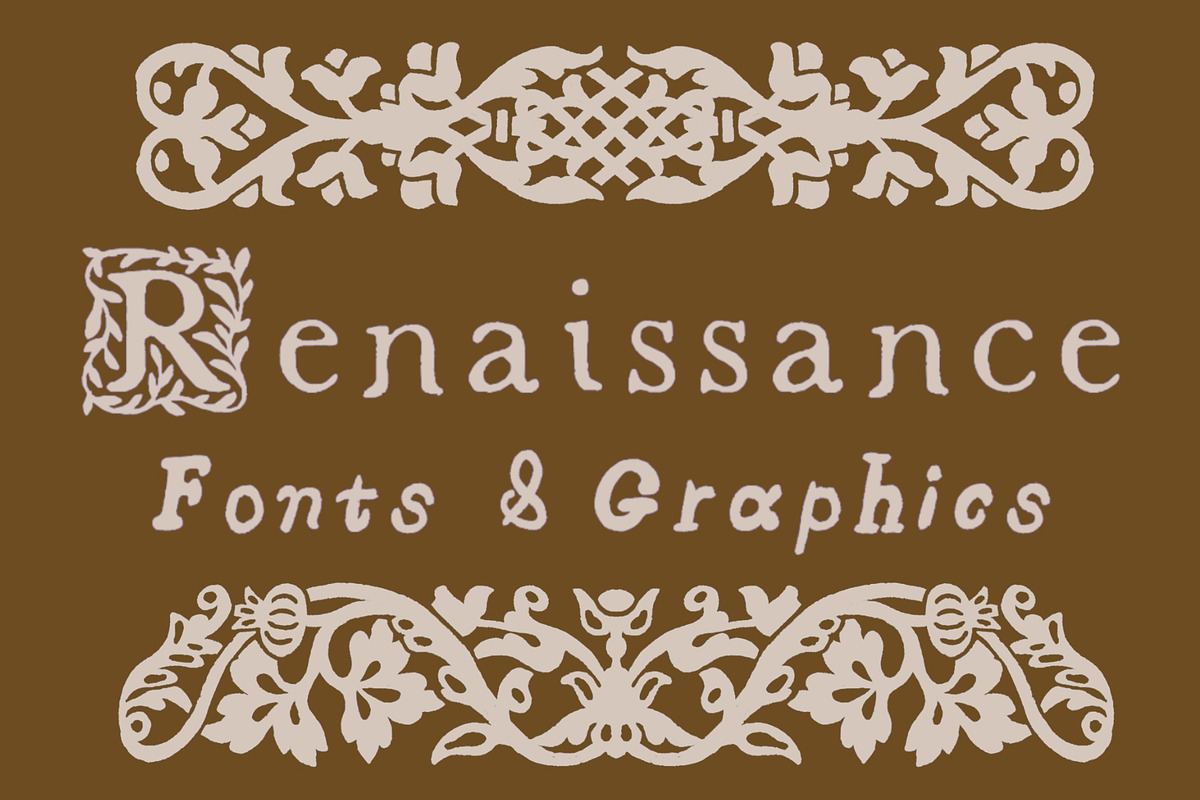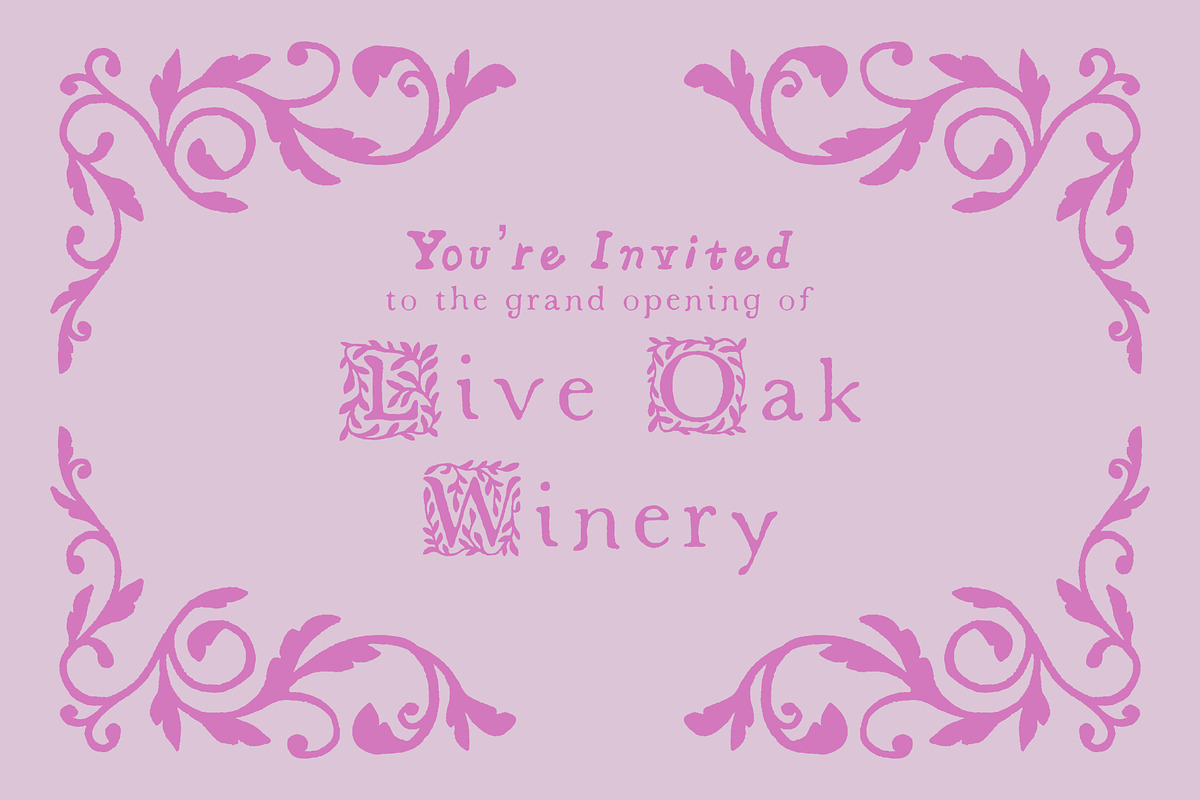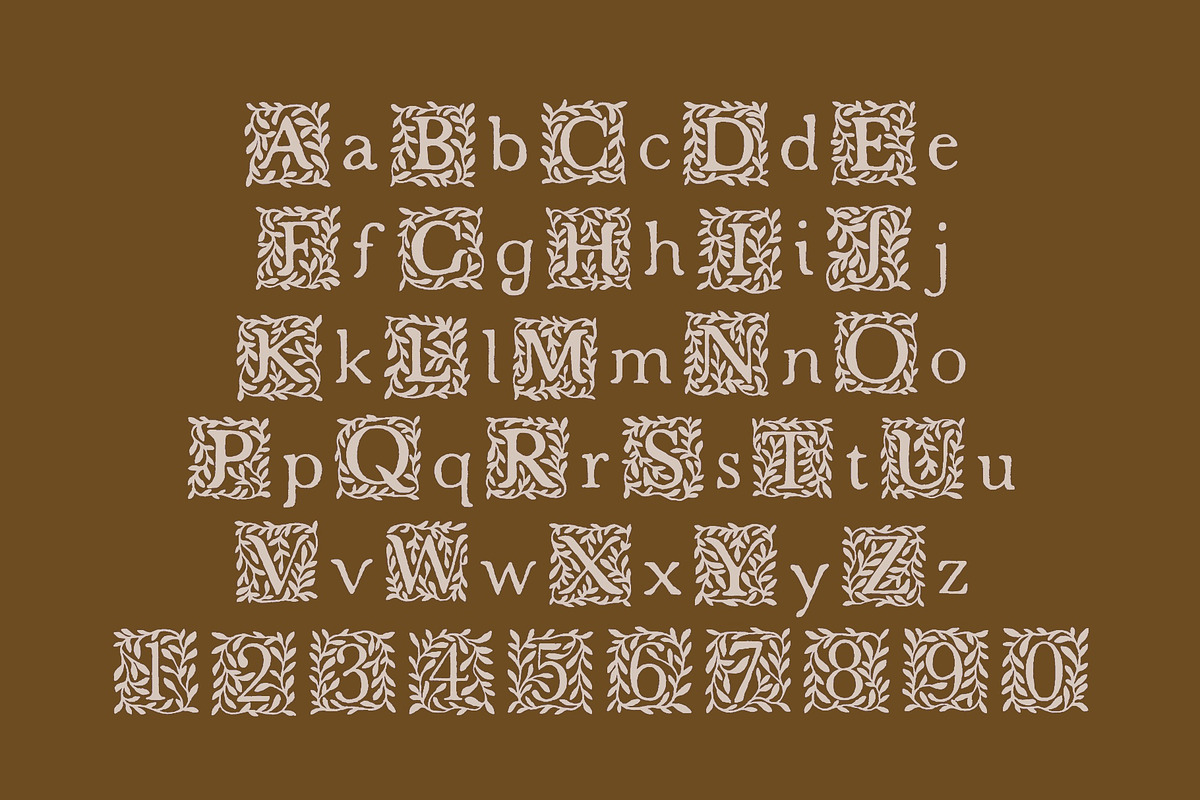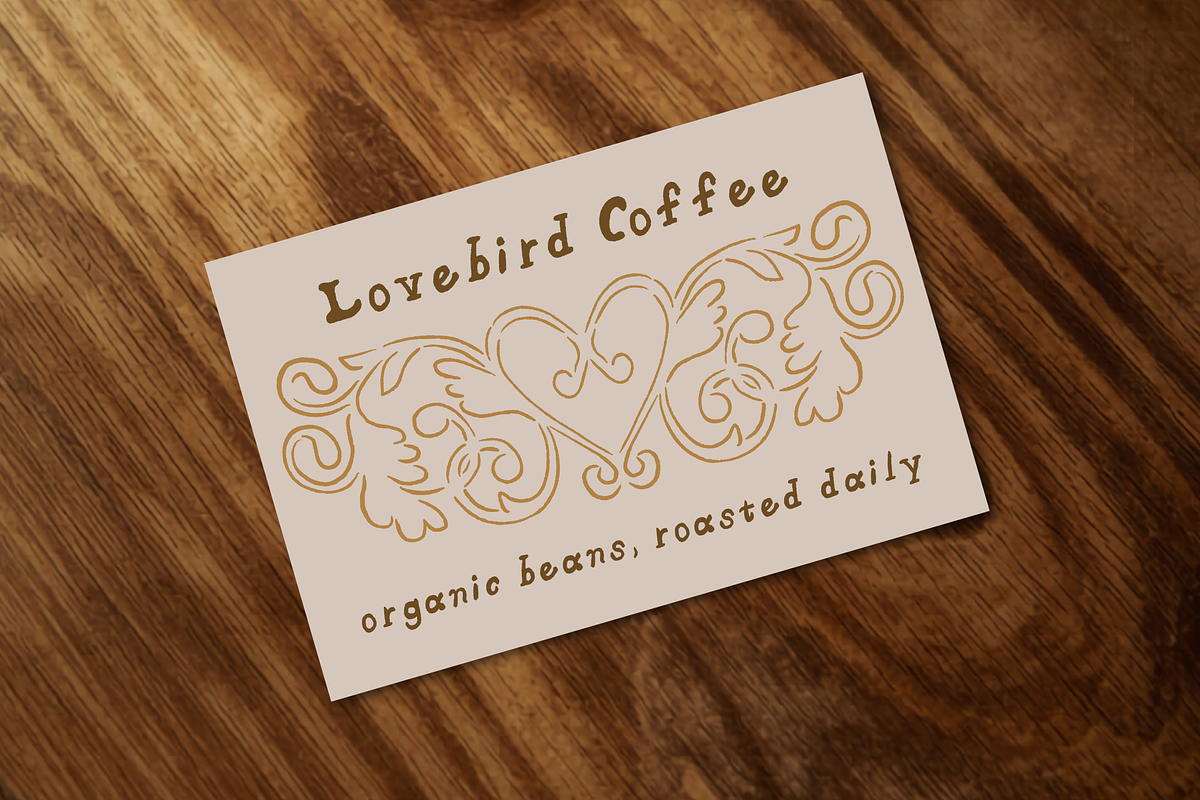
Renaissance Font & Graphics Set
This hand-drawn Renaissance fonts and graphics set is full of fluid, mix-and-match elements inspired by illuminated manuscripts, woodblock engravings, and the ornamental borders of old printed books. Every piece was drawn by hand, so the whole set has that warm, slightly-imperfect feel that makes a design look made, not generated.
Mix and match the borders, corners, and motifs in any orientation, then recolor anything to fit your palette:
★ 24 borders (horizontal & vertical)
★ 10 framing corners
★ 8 standalone motifs & medallions
★ 2 hand-drawn Renaissance fonts (Quill Dipped & Printing Press)
★ Whimsical bird, owl & squirrel vine borders